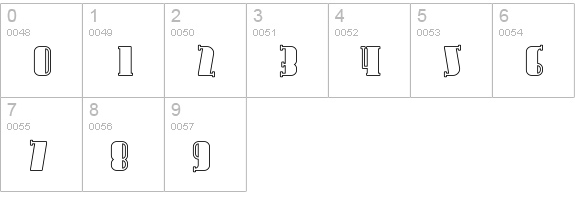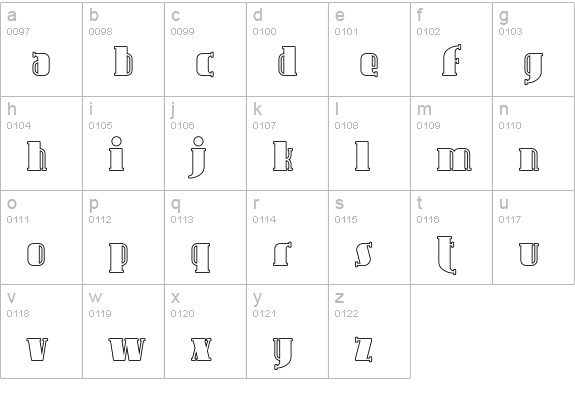
Avondale Outline Font Details
Avondale Outline font is a striking and modern typeface that exudes elegance and sophistication. With its clean lines and contemporary design, this font is perfect for creating eye-catching titles, headings, and logos. The unique outline style adds a touch of creativity and flair to any project. The best part? Avondale Outline font is available for free download at FontsMarket.com. You can easily access this stylish font and elevate your designs without any cost. Whether you're working on a branding project, poster, or website, Avondale Outline font will surely make a statement and leave a lasting impression. Don't miss out on this incredible opportunity to enhance your designs with this beautiful and free font. Download it today and unleash your creativity!